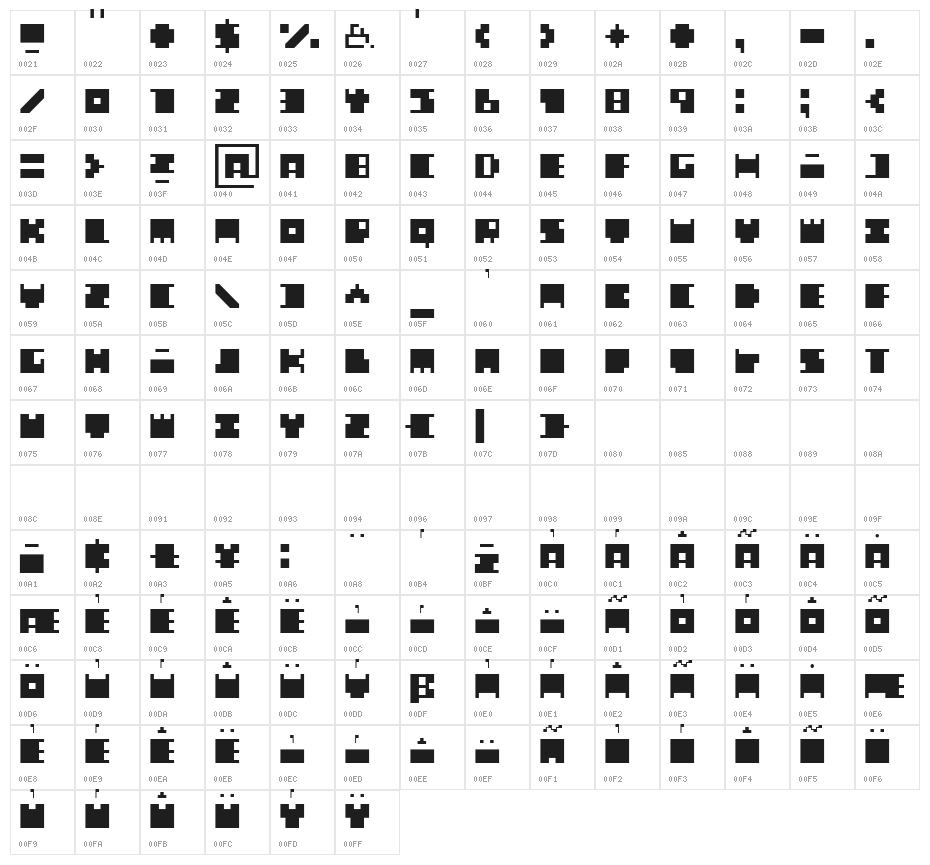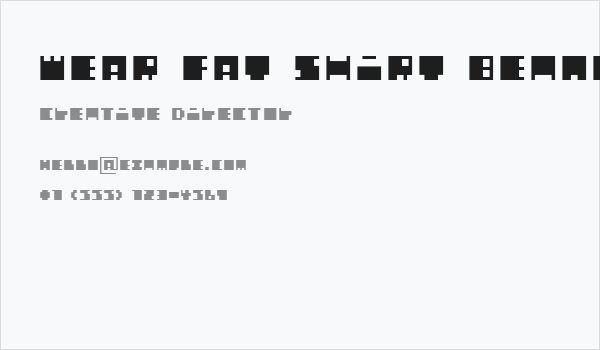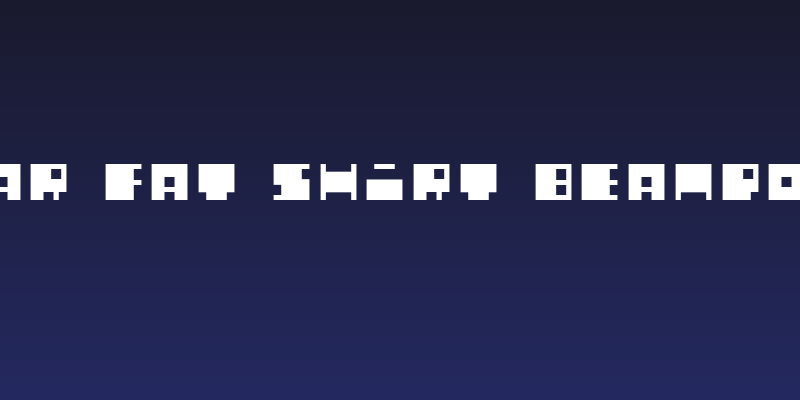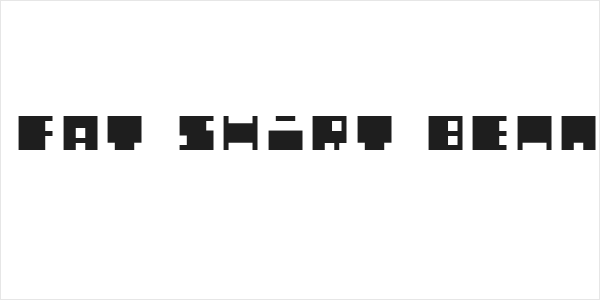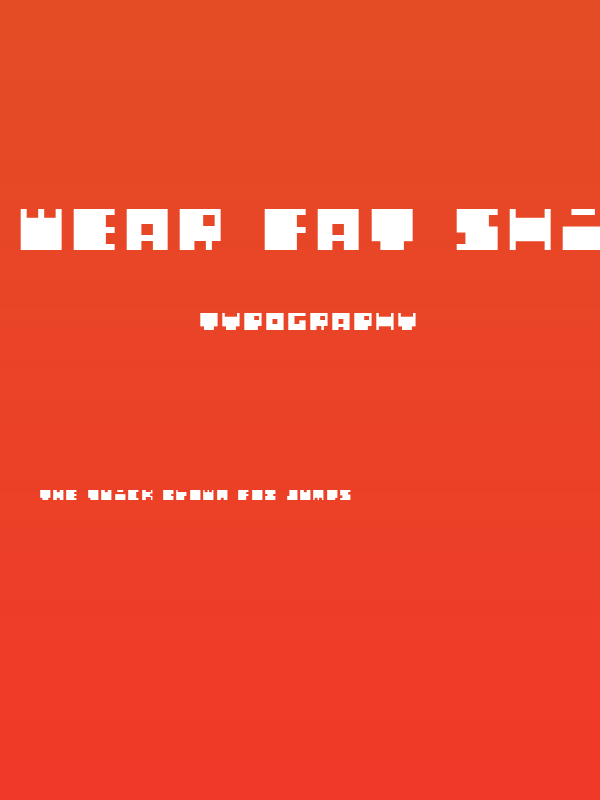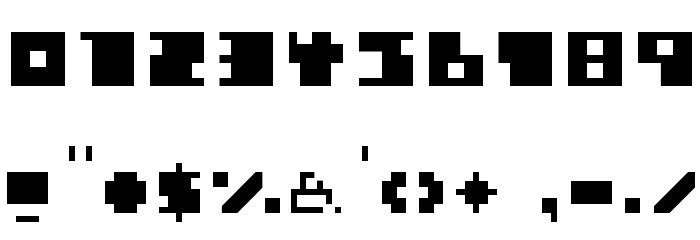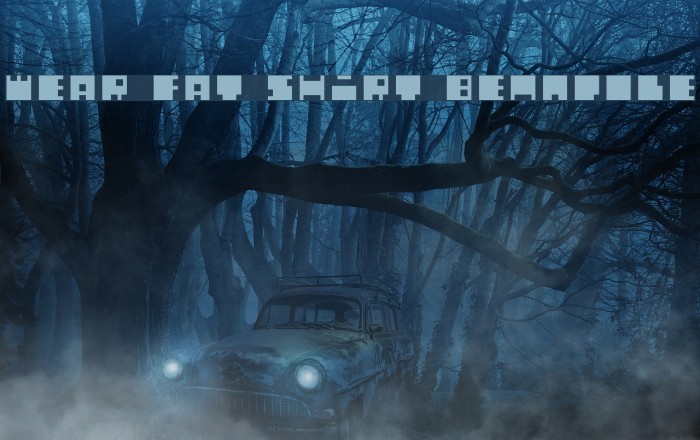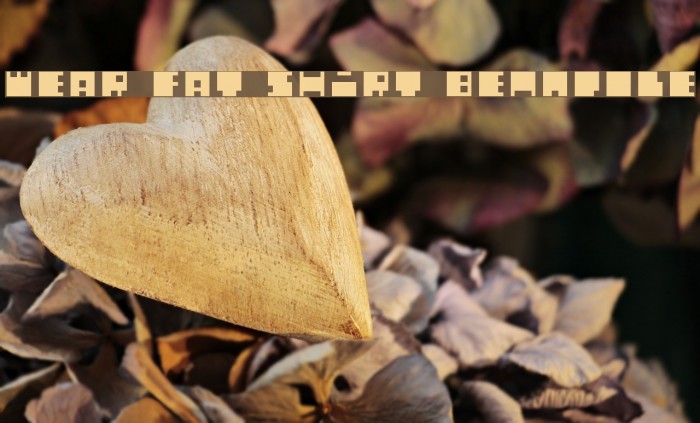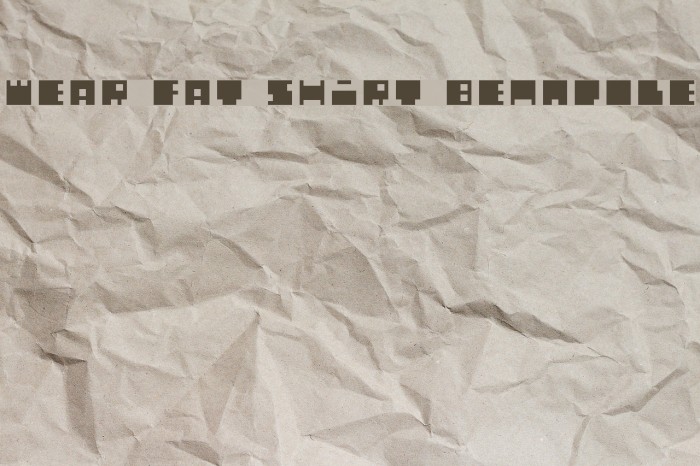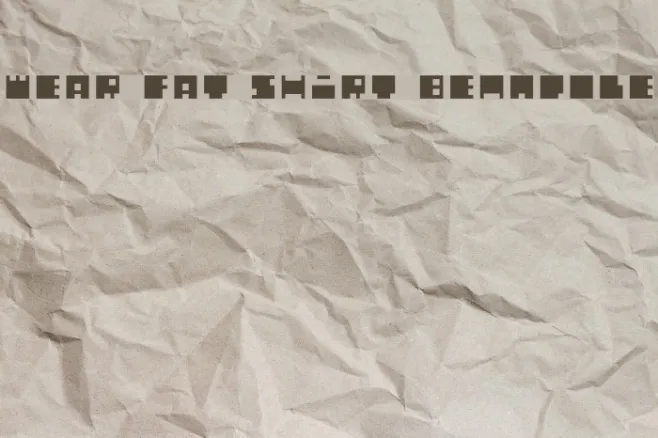
WEAR FAT SHIRT Beanpole Font
WEAR FAT SHIRT Beanpole Description
This font features a bold, geometric design with a blocky, pixelated appearance. Each character is constructed with sharp angles and straight lines, giving it a digital, retro feel reminiscent of early video game graphics. The uppercase and lowercase letters maintain a consistent height, contributing to a uniform and cohesive look. Numbers and special characters follow the same stylistic approach, ensuring visual harmony across all elements. The font's distinct style makes it highly suitable for projects that require a strong, impactful visual presence.
| Overall Style | Retro, Digital |
| Proposed Projects | Ideal for video game graphics, tech-themed posters, digital art projects, and retro-style branding. |